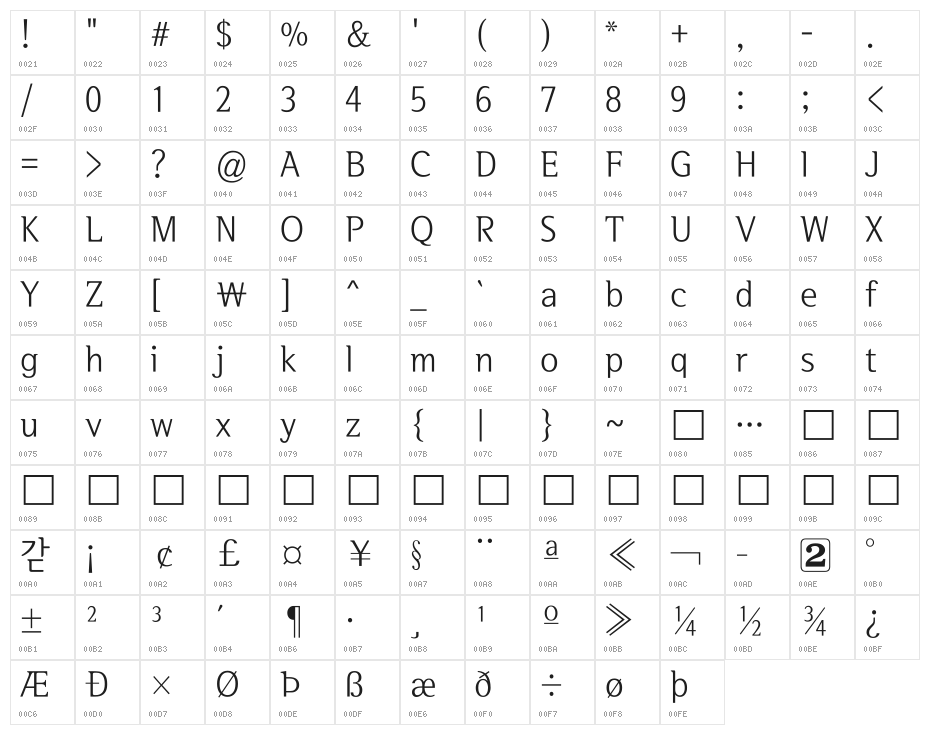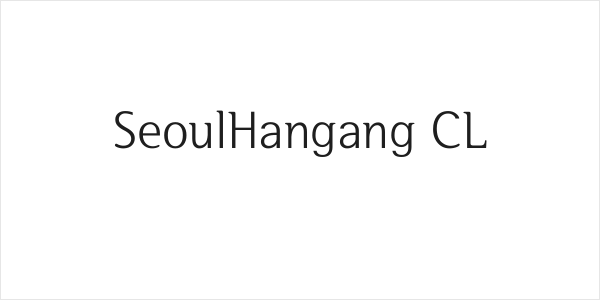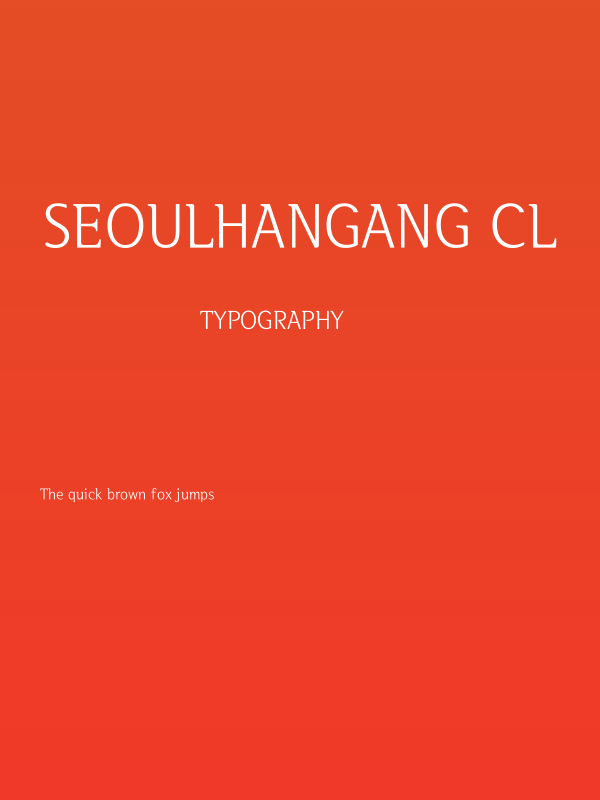
SeoulHangang CL Font
SeoulHangang CL Description
This font features a clean and modern sans-serif design with a balanced structure. The characters are well-proportioned, offering a harmonious blend of curves and straight lines. Uppercase letters are bold and commanding, while lowercase letters maintain a friendly and approachable appearance. The numerals are clear and easy to read, making them suitable for various applications. Special characters are distinct and well-integrated into the overall design. The font's simplicity and elegance make it versatile for both digital and print media.